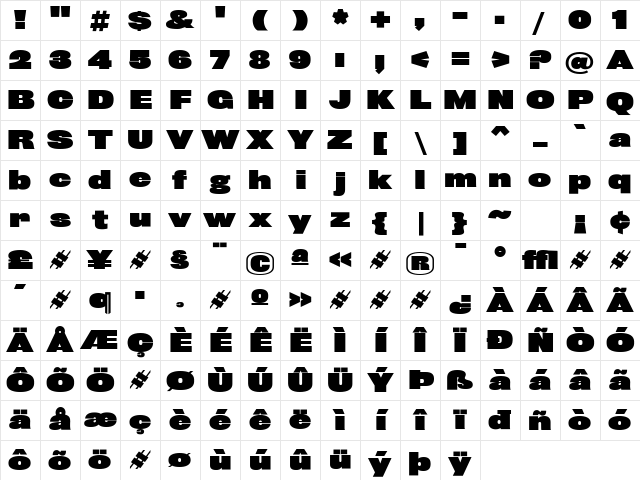
Rhode Regular
Foundry: The Font Bureau, Inc
Rhode Family
Rhode Regular
Design Context for Rhode
Rhode is a composed and adaptable typeface that performs quietly and consistently across a wide range of design contexts.
Who designed the Rhode Regular font?